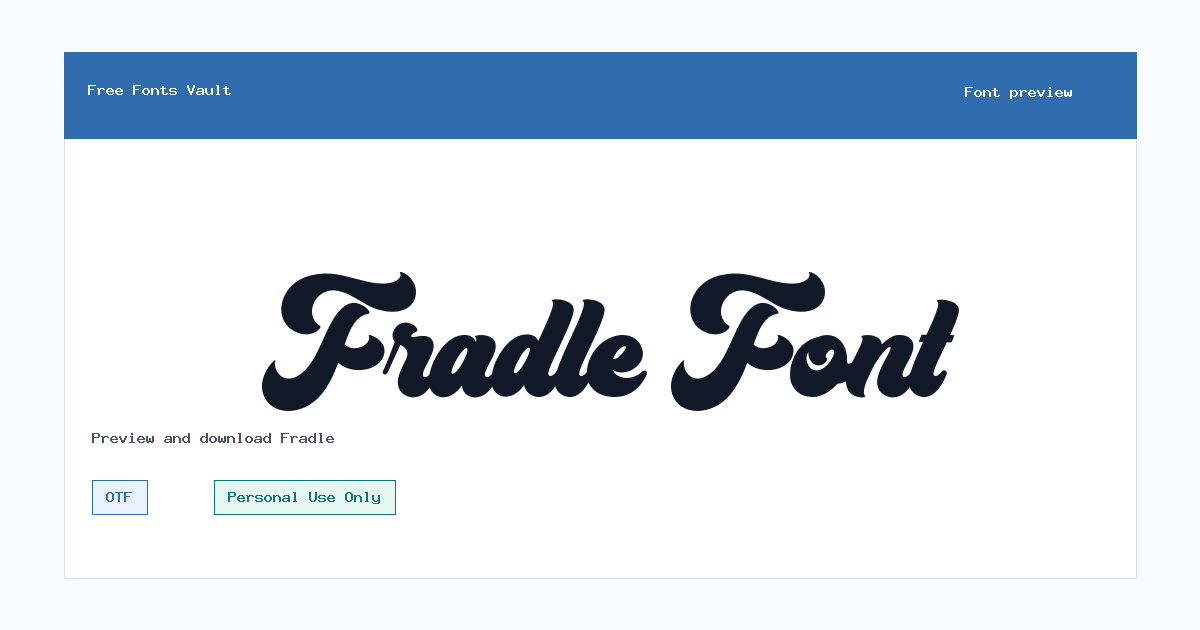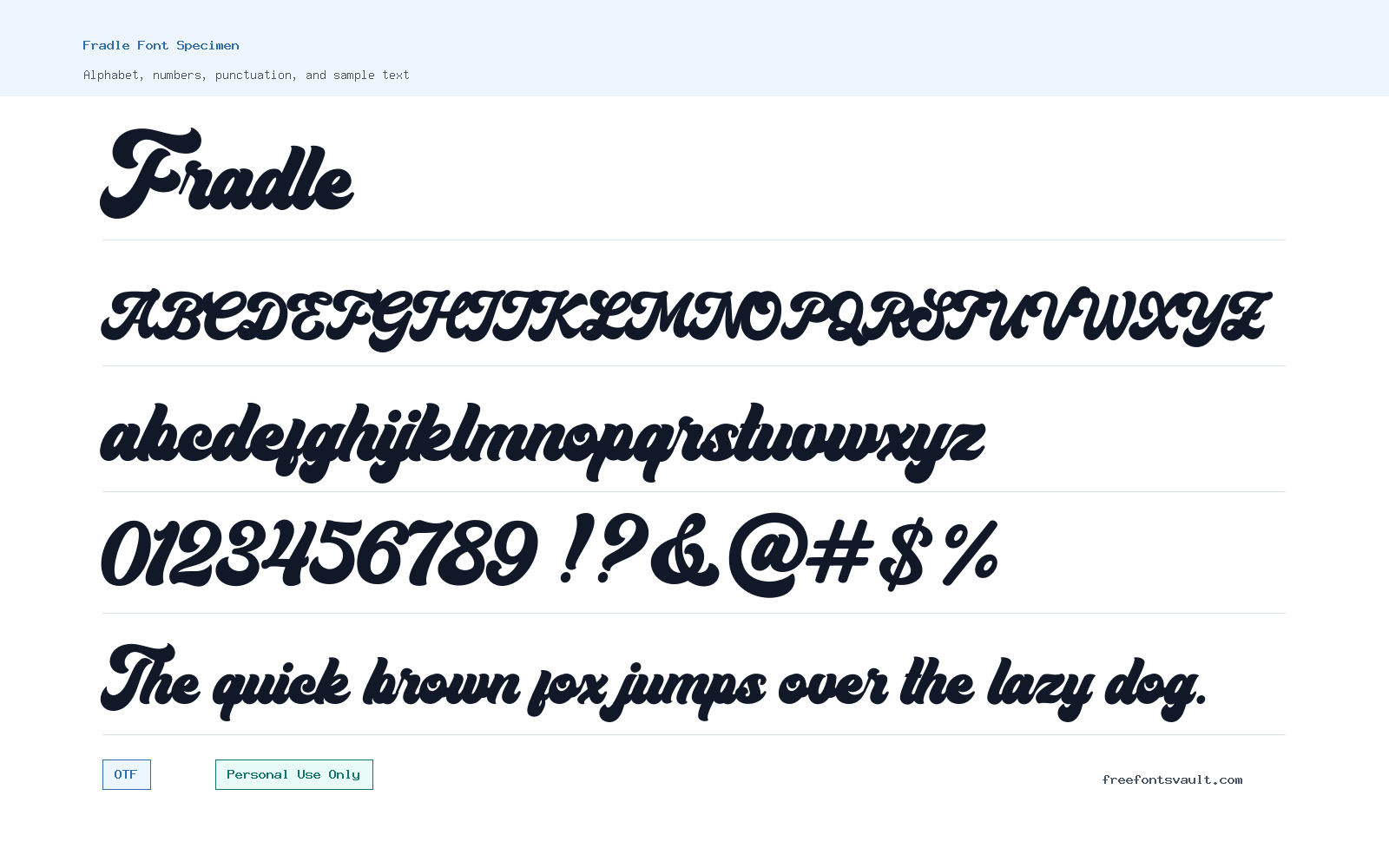
Fradle
Fradle font preview showing the family name
Fradle Font
Fradle font specimen showing alphabet, numbers, and sample text
Fradle font.
Fradle is a retro script font with a decorative handwritten feel, made for display text rather than long reading. It works best when you want a warm, flowing title style for a personal design project.
About Fradle Font
Fradle uses a script style with connected letterforms and a vintage-leaning personality. The look suits short words, names, headings, and decorative phrases where the lettering can be large enough to show its curves clearly. Because it is a script font, the main value is in the mood of the shapes rather than plain-text efficiency. Use it when you need a softer headline, a label-style wordmark, or a casual retro accent, but avoid relying on it for paragraphs, small navigation text, or dense information.
• Retro script style suited to short display text, names, headings, and decorative phrases.
• Personal posters, greeting cards, mood boards, quote graphics, and social media images.
Fradle is credited to designer Eep Apringga, with Namara Creative listed as the foundry. The designer URL points to onedsgn.com.
Use Fradle at medium to large sizes so the script details stay clear. It is a better choice for a few words than for body copy. Test uppercase and lowercase combinations before downloading, and pair it with a simpler font if your design needs supporting text.
What kind of designs is Fradle good for?
Fradle is best for short display text such as titles, names, quotes, labels, cards, and personal social graphics. It is not ideal for long paragraphs or very small text.
Who designed Fradle?
Fradle is credited to Eep Apringga, and Namara Creative is listed as the foundry.
What should I check in the preview?
Preview your exact words, including capitals, punctuation, and repeated letters. Make sure the script connections look clean and that the text remains readable at the size you plan to use.